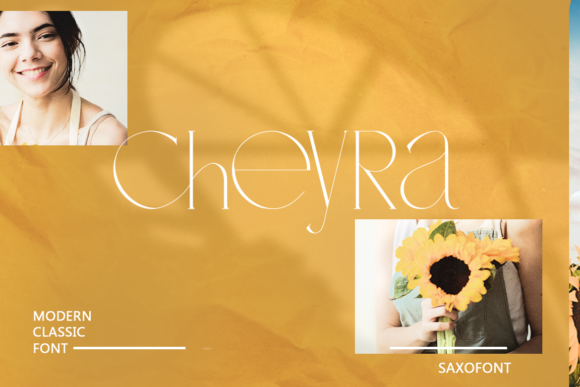
Unleash a world of charm and sophistication with Cheyra, the captivating sans serif font designed to make a statement in your design projects. With its slender strokes and modern appeal, Cheyra exudes an air of elegance and grace that's sure to leave a lasting impression.
Step into a realm of creativity where your designs come alive with a touch of allure. Cheyra's thin lines dance across the page, adding a delicate touch of femininity and charm to every word. Its clean, crisp edges ensure that your message is delivered with clarity and impact, making it the perfect choice for branding, logos, and marketing materials.
Transport your audience to a world of enchantment with Cheyra's PUA-encoded format. With ease, access a treasure trove of glyphs and swashes that unlock infinite possibilities for customization. Let your imagination soar as you explore unique character combinations and create designs that captivate and enchant.
Embark on a journey of self-expression, where Cheyra becomes an extension of your creative vision. Its versatility knows no bounds, adapting seamlessly to a myriad of design projects. Craft captivating posters that draw the eye, design brochures that exude professionalism, or create website layouts that radiate sophistication.
With Cheyra, the possibilities are endless. Indulge in the joy of creating designs that resonate with your audience, leaving an indelible mark on their hearts and minds. Embrace the allure of Cheyra and unlock the gateway to a world of design excellence.